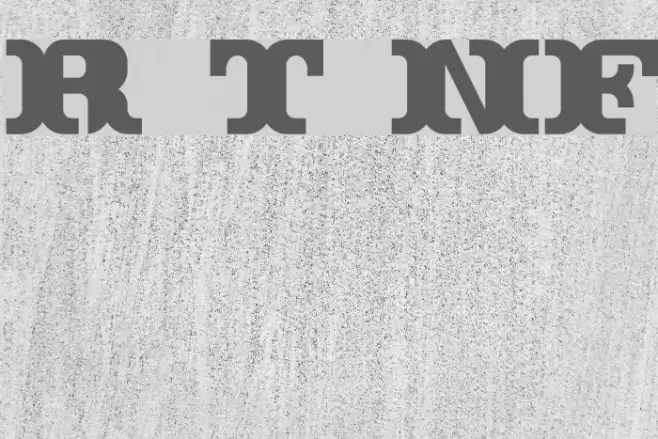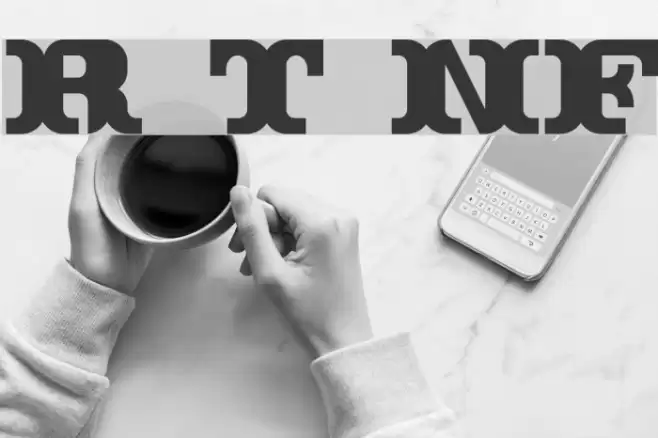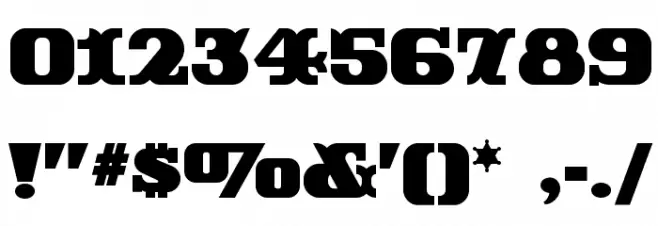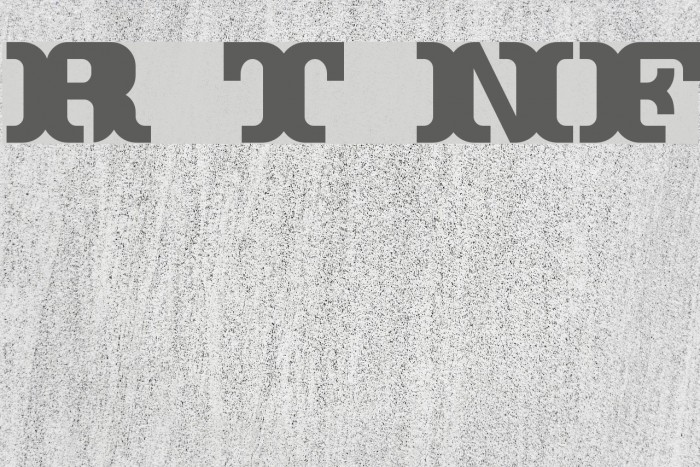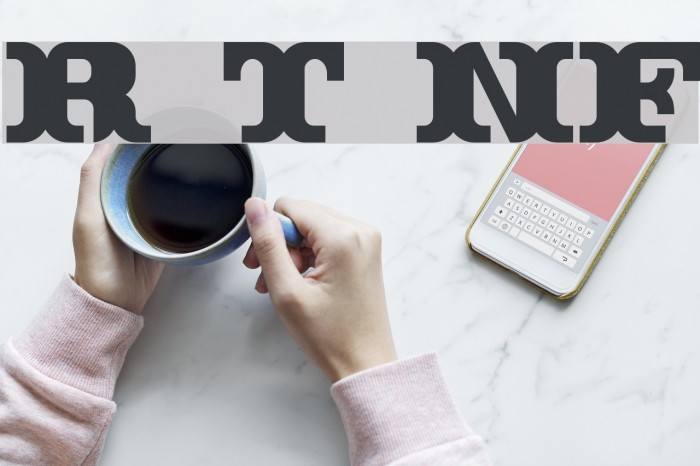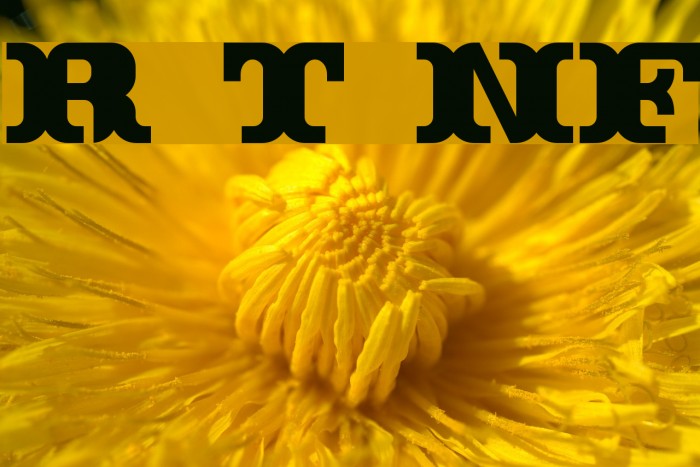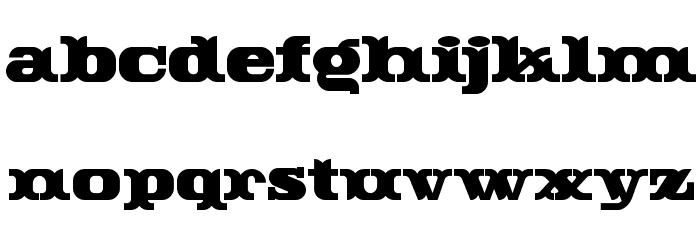
Rutin Tutin NF Font
Rutin Tutin NF Description
This font features a bold and robust design with thick, blocky serifs that give it a strong and commanding presence. The uppercase letters are particularly striking, with a uniform width and a slight inward curve at the ends of the strokes, adding a touch of uniqueness. The lowercase letters maintain the boldness, with rounded edges that soften the overall look. Numbers are equally bold, ensuring visibility and impact. Special characters are designed to match the font's overall style, making it versatile for various uses. The font's heavy weight and distinct style make it ideal for attention-grabbing headlines or logos.
A bold, serif font with thick strokes and a strong, commanding presence from Script fonts.
- Proposed Projects: Ideal for posters, logos, branding materials, and any design requiring a bold statement.